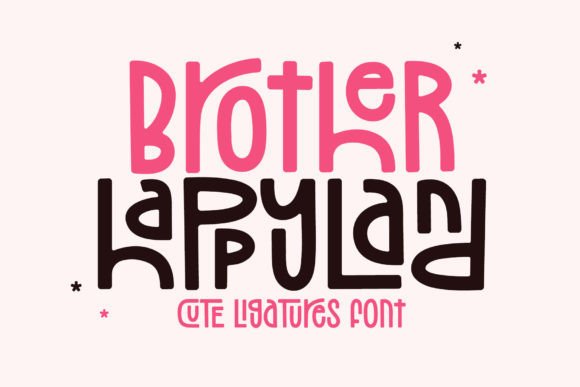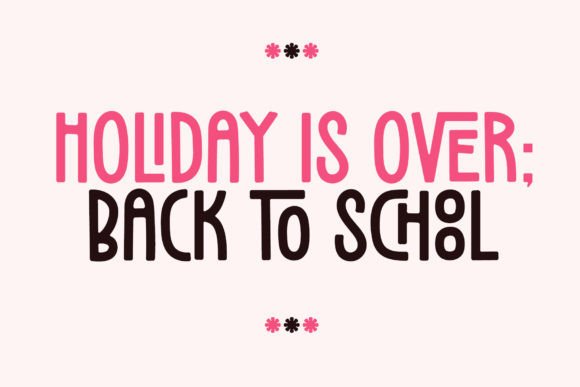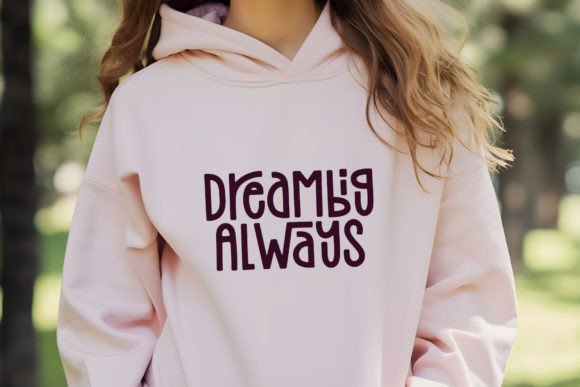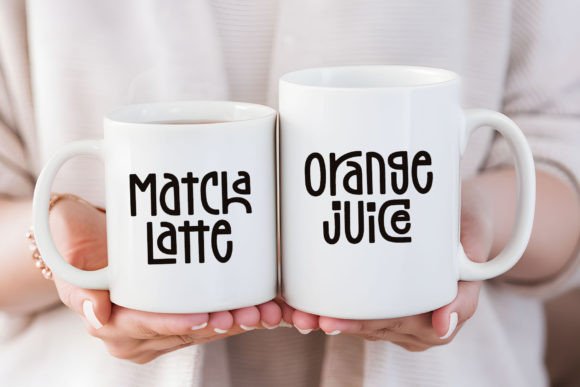
Brother Happyland Font: A Cute Display Font with Playful Ligatures
About the Brother Happyland Font
Introducing the Brother Happyland Font, a beautifully crafted typeface designed to elevate your creative projects. Brother Happyland is a display font with fun and cute vibes.
This font has lots of ligatures for its uppercase and lowercase. The ligatures radiate cuteness and playful vibes.
It is a pretty font for any project, especially with a cute and playful style, such as logo, t-shirt, crafting, poster, branding, sticker, sublimation, quotes, and many more.
Brother Happyland’s playful energy makes it ideal for headlines, short slogans, and branding projects targeting a young or family-oriented audience. It excels in applications like logos, posters, and social media graphics where its charming character shines. However, its highly decorative nature makes it unsuitable for body text or UI elements requiring high readability.
Consider pairing Brother Happyland with a clean sans-serif like Open Sans for a balanced contrast, or a classic serif like Garamond for a touch of sophisticated whimsy. For a more playful combination, explore pairing it with a rounded geometric sans-serif.
The font’s overall personality is undeniably cheerful and friendly, making it a perfect choice for brands aiming for a cute and approachable aesthetic.
Brother Happyland Font Usage Examples
Brother Happyland Font Example